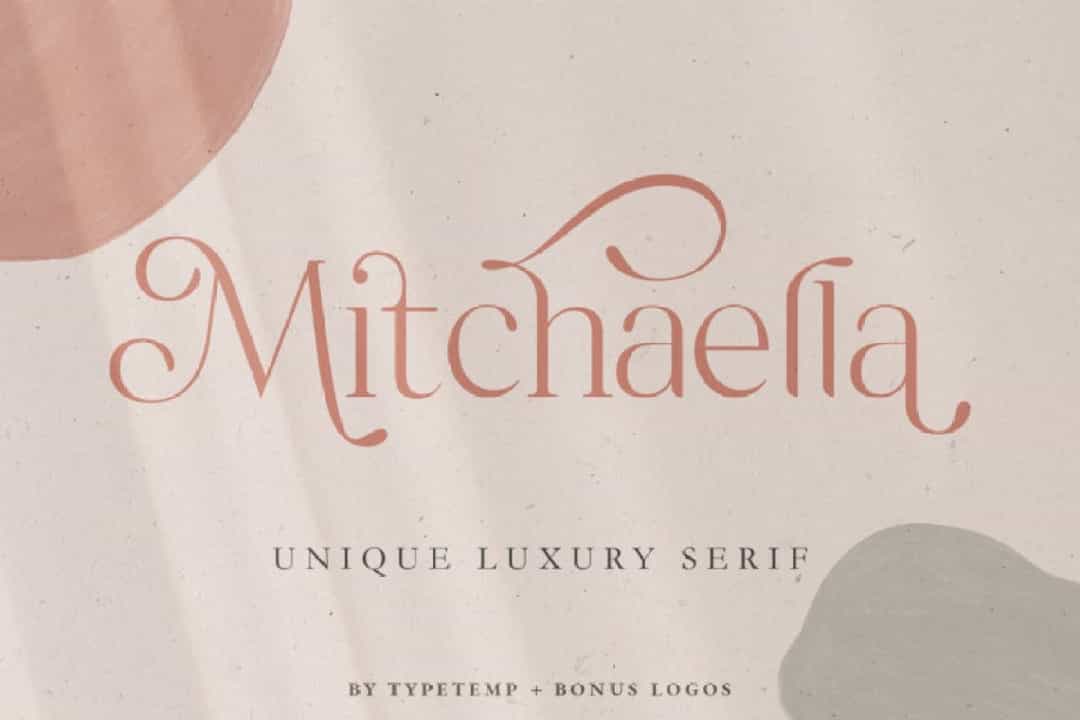
Mitchaella Modern Unique is a high quality delicate serif font that includes a large set of characters and ornaments, supporting for many languages through ligatures, and a wedding logo as a bonus. Mitchaella Modern Unique is a versatile font that can be used in branding, logo designs, magazine designs and layouts, wedding invitation designs, poster designs, packaging, fashion website logos and many other purposes.